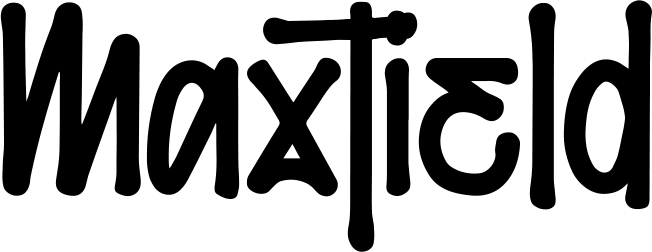
Maxtield Font
Maxtield font with marker lines and the end of the circle in the characters is a wonderful street art font. This font will be amazing with blood drops and color for your next artistic projects. This graffiti font does not support numbers, but you can use it on art magazine covers, t-shirt designs, and the packaging of many toys.